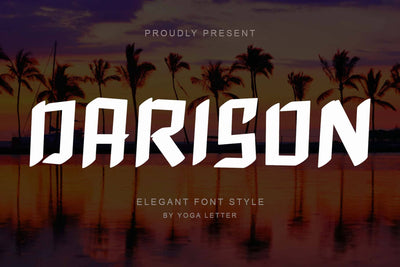
Darison
“Darison” is an elegant and unique handwritten font. This font is equipped with uppercase, lowercase, numerals, punctuation, and multilingual support. Very suitable for logos, banners, branding, stickers, posters, prints, book covers, spring, holidays, summer, vacation, and others.